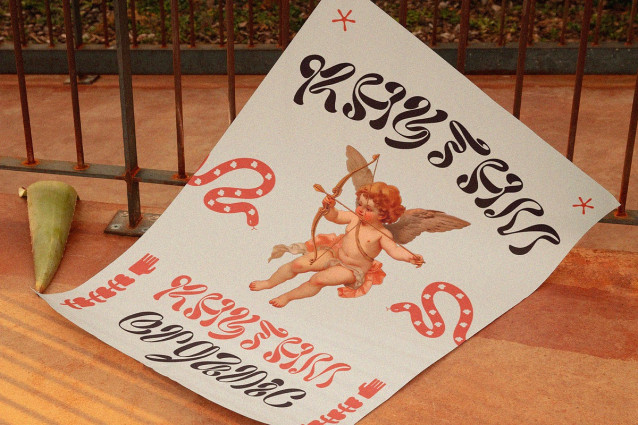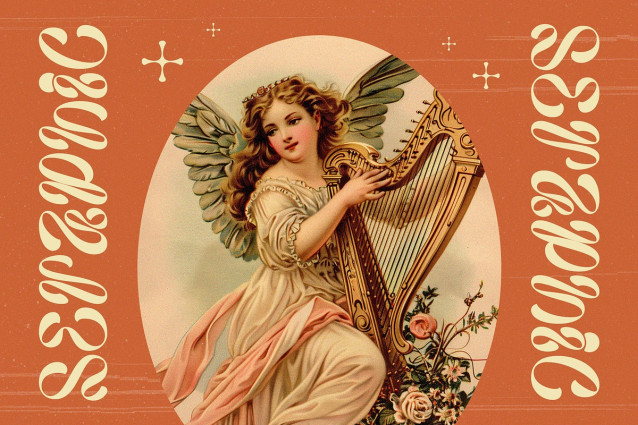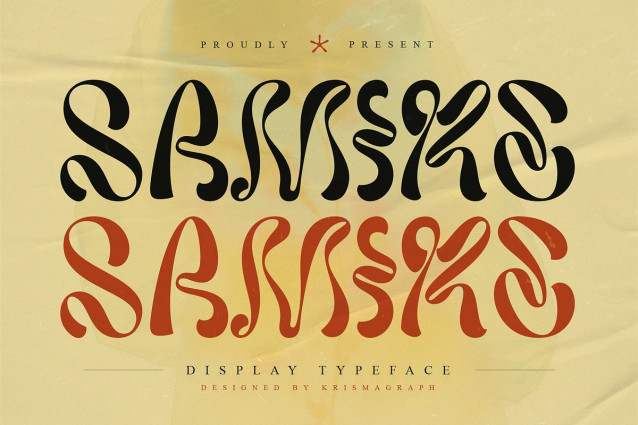
Samire Display Font
Samire Display Font a bold and expressive display typeface inspired by vintage lettering and playful retro aesthetics. Designed to stand out, Samire features organic curves, dynamic strokes, and distinctive letterforms that instantly capture attention while maintaining strong visual harmony.
This typeface is perfect for designers who want to create impactful headlines, eye-catching titles, brand visuals, posters, packaging, book covers, social media graphics, and creative editorial layouts. Samire carries a nostalgic spirit with a modern twist, making it highly versatile for both classic and contemporary design projects.
Each character is carefully crafted with smooth flow and strong personality, giving your typography a lively and confident presence. Whether used in bold compositions or expressive branding elements, Samire delivers charm, uniqueness, and character in every word.